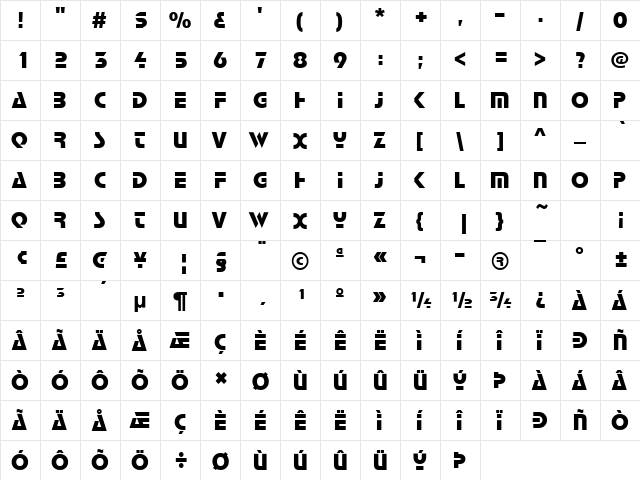
ScottSoft Regular
Design Context for ScottSoft Typeface
ScottSoft is a composed and adaptable typeface that performs quietly and consistently across a wide range of design contexts.